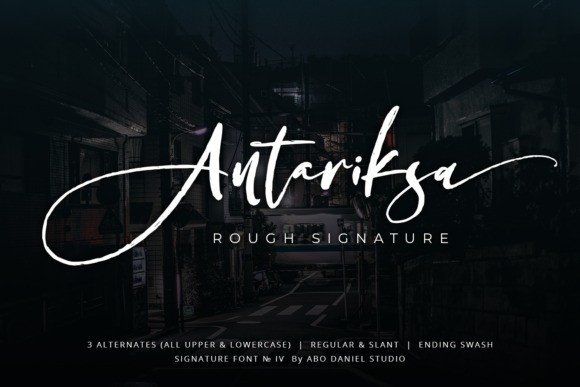
Antariksa Script Font
Antariksa Script Font is a script text with a natural style & ink pen effect. It’s a stylish calligraphy font !!! For those of you who are needing a touch of elegant, chic and modernity for your designs, this font was created for you!
Antariksa Calligraphy Script Font features beautiful swashes and gorgeously rich lines, which make this font appear incredibly sophisticated.
This fancy calligraphy script comes in two distinct styles, Regular and Slant, that will allow you to create a wide variety of results. So would be perfect for all types of printing techniques, you can do embroidery, laser cut, cricut, gold foil etc.